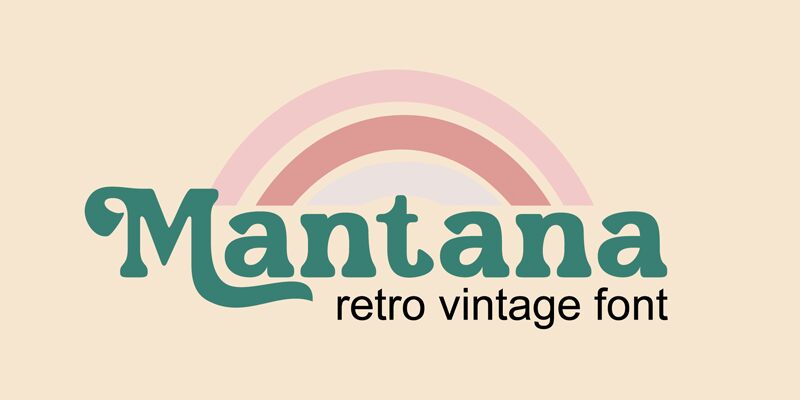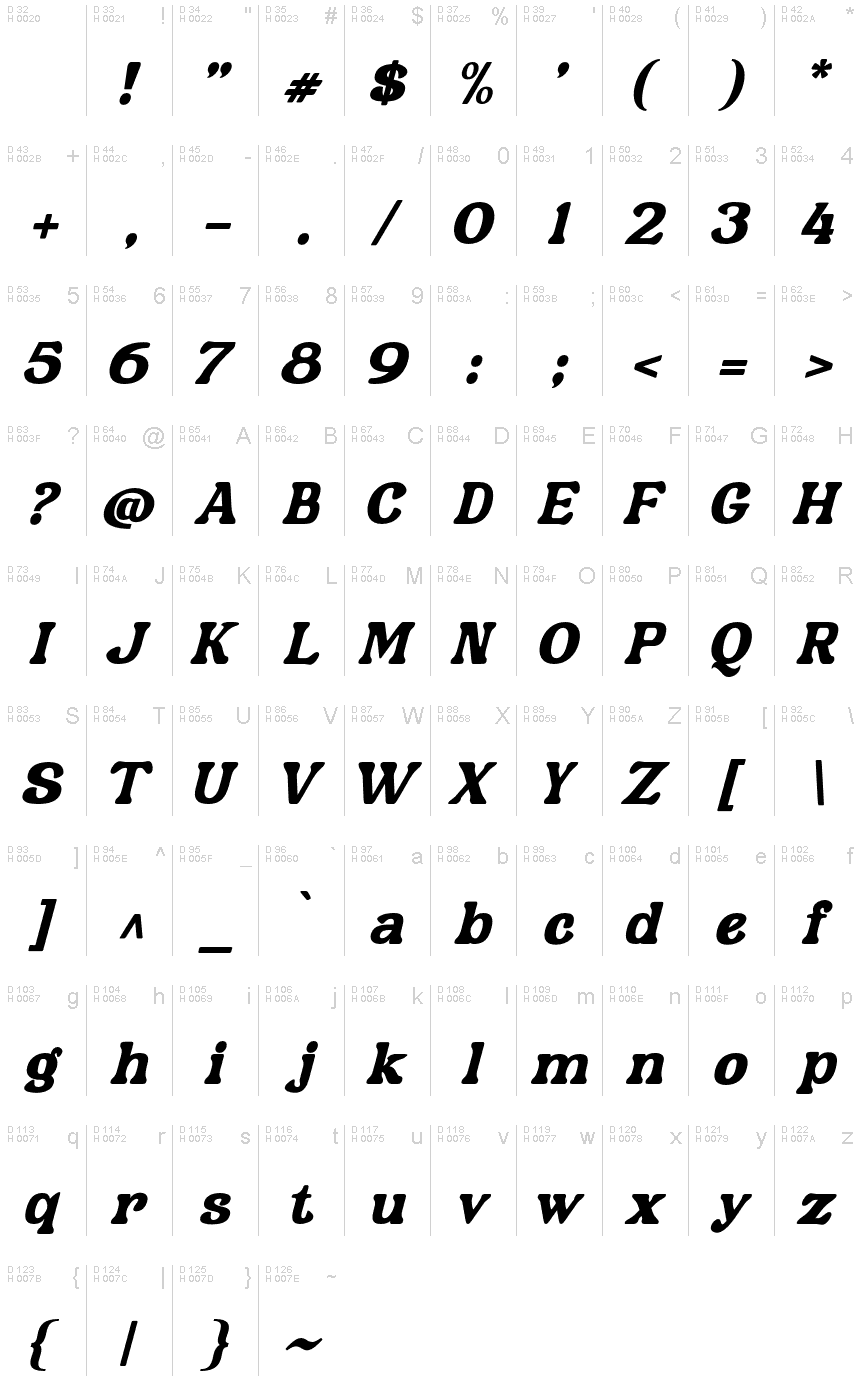
Mantana-Italic
Mantana Italic is a striking display font from the Mantana font family designed by Anomali Creative.
With its bold and retro vintage style, this font is perfect for eye-catching headlines, logos, and packaging designs. Its unique italicized form adds a touch of elegance and sophistication to any project. Use Mantana Italic to bring a nostalgic feel to your branding materials, advertisements, or editorial layouts. This versatile typeface will transport your audience back in time while maintaining a modern edge.
Let Mantana Italic take your creative projects to new heights with its captivating vintage charm.